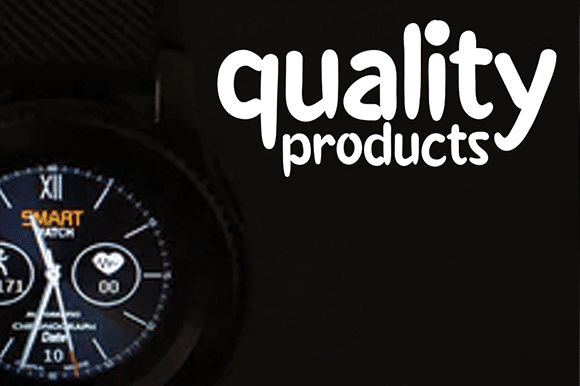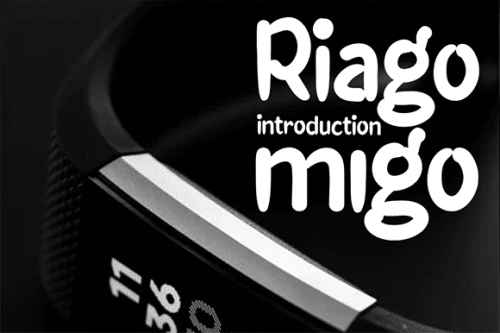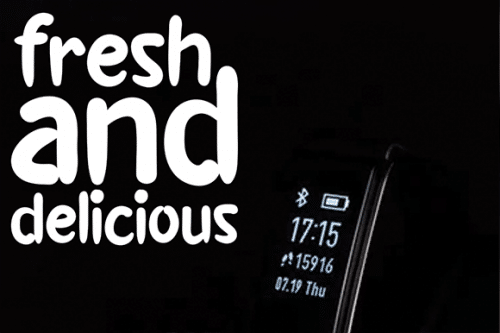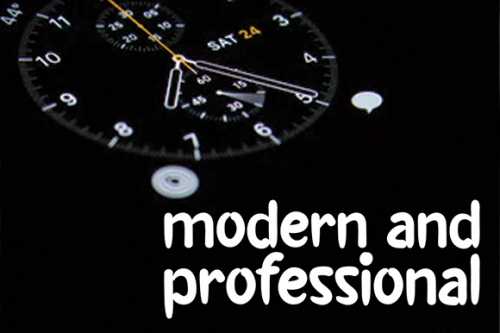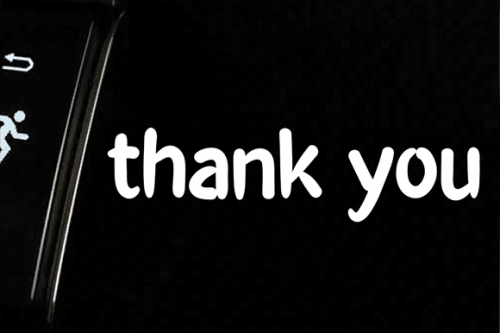
Riago Migo Display Font
Riago Migo is a modern display font, carefully handcrafted to become a true favorite. Whether you’re looking for fonts for Instagram or calligraphy scripts for DIY projects, this font will turn any creative idea into a true piece of art!
• Designer: andikastudio